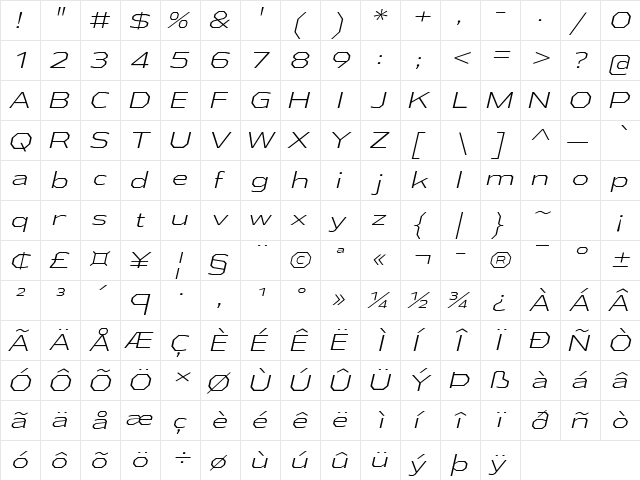
Athabasca Expanded Light Italic Font Preview
Design Context for Athabasca Typeface
Athabasca takes a measured approach to typography — its balanced proportions and neutral character make it a reliable workhorse for both digital and print work. The dynamic lean of this cut emphasises speed and emphasis in any layout. Its slender proportions lend an understated elegance to any composition.
Pro Tip: Try Athabasca for annotation and caption copy alongside an upright companion — the contrast in angle creates a dynamic but ordered typographic system.